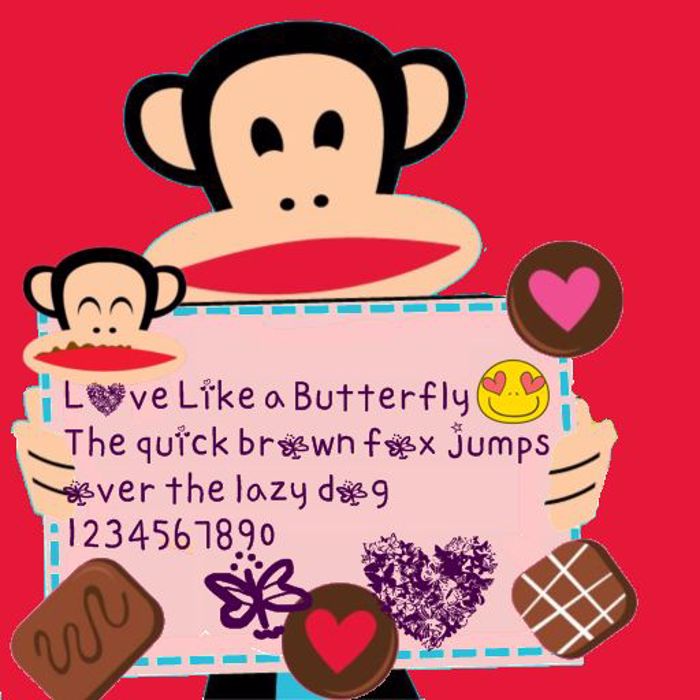
love like a butterfly by OUBYC Font
love like a butterfly by OUBYC Font is a Cute font and was created on . Since then, it has been downloaded 5,541 times and added to 152 collections. 10 people have liked love like a butterfly by OUBYC Font and given it a thumbs up.
agains for you .. this font specially for our awesome valentine days ^^.. enjoyyy.
12 years agoso cute <3
Very cute fonts... :))))